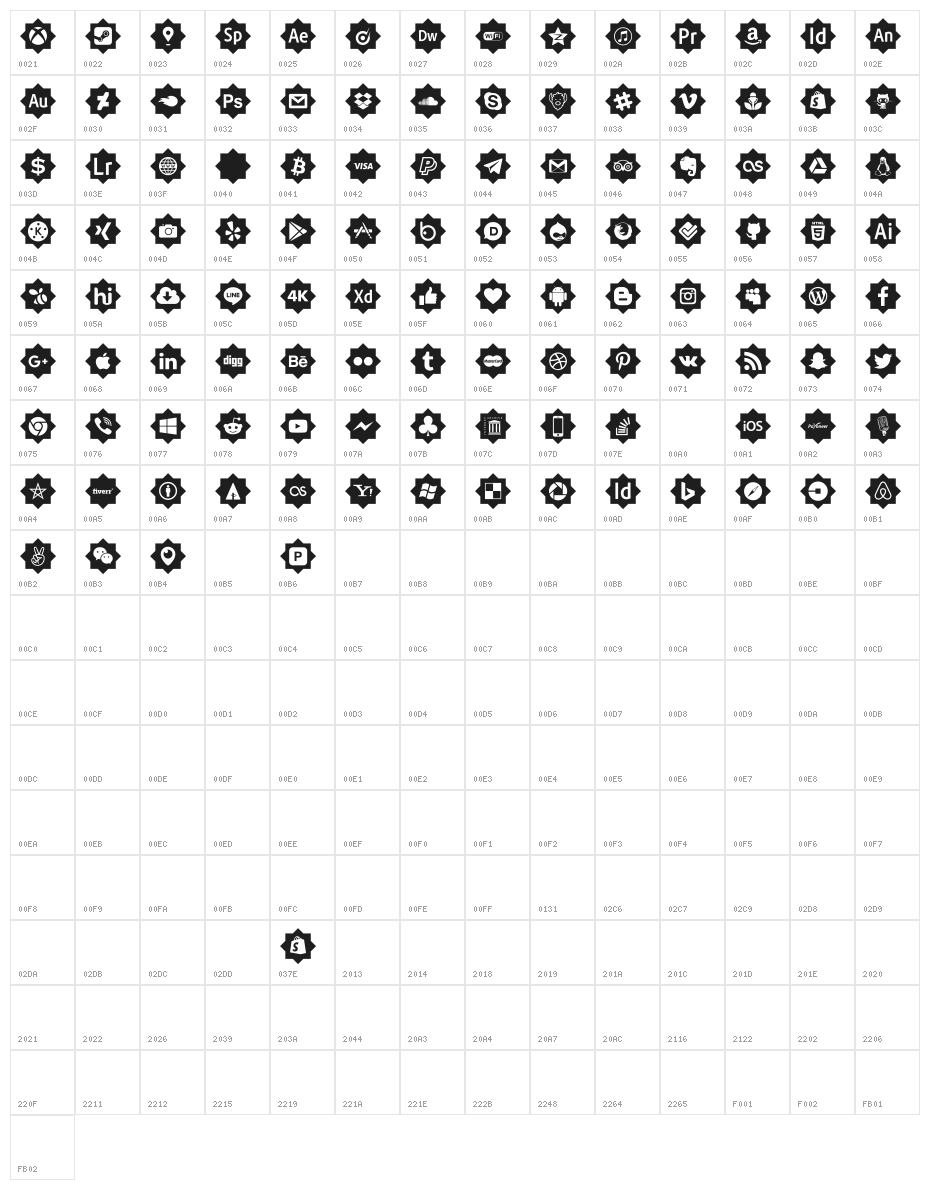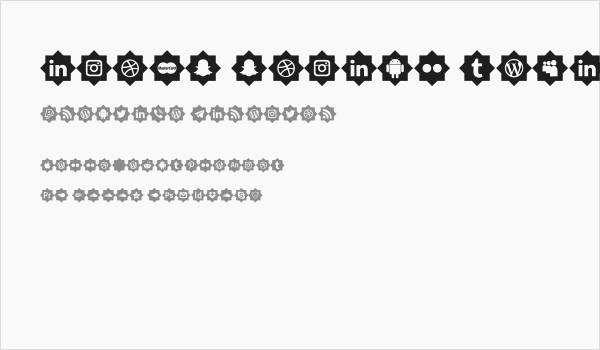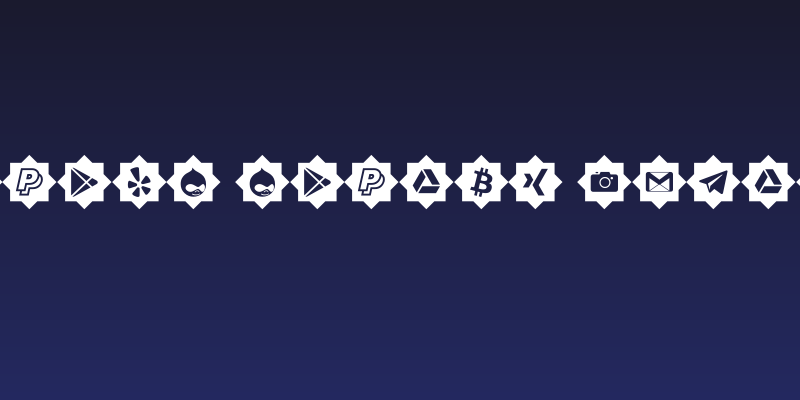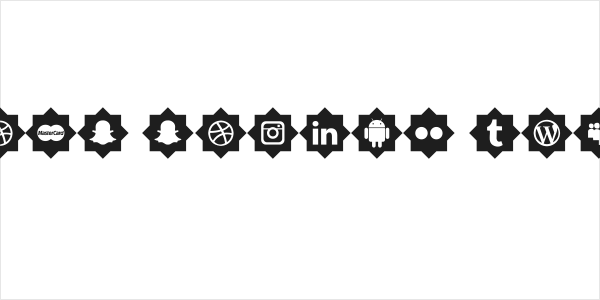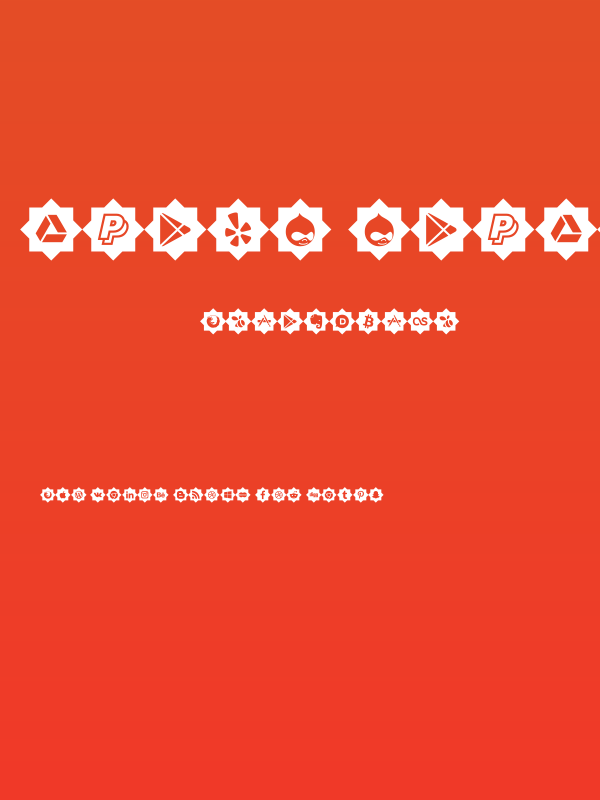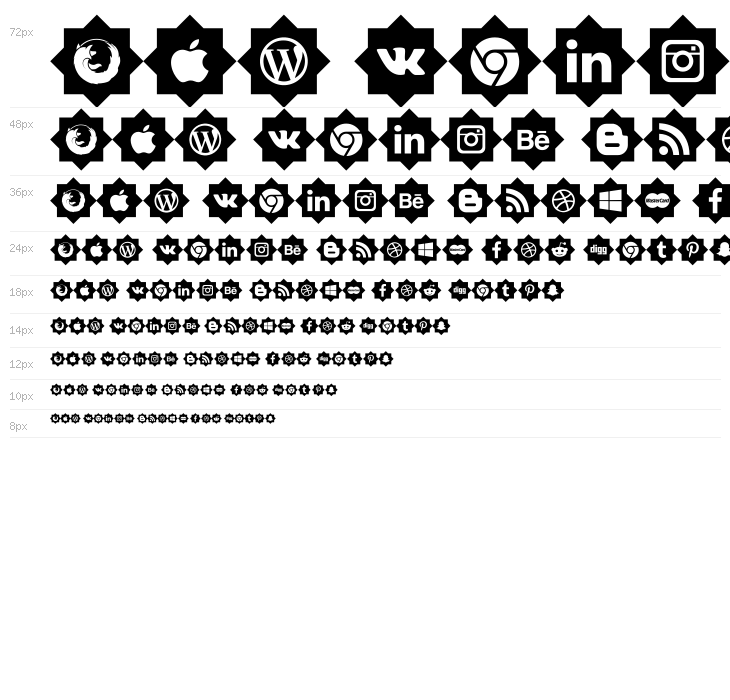
icons social media Font
icons social media Description
A collection of social media and brand icons, each enclosed in a bold, geometric starburst shape. The icons are rendered in a flat, monochrome style with high contrast between the black background and white symbols, providing clear visual separation. The set includes a wide range of recognizable logos and symbols, all uniformly sized and spaced.
| Use Case | Icons, UI elements, Branding, Social media links |
| Proposed Projects | App interfaces, website footers, business cards, presentations, social media banners. |